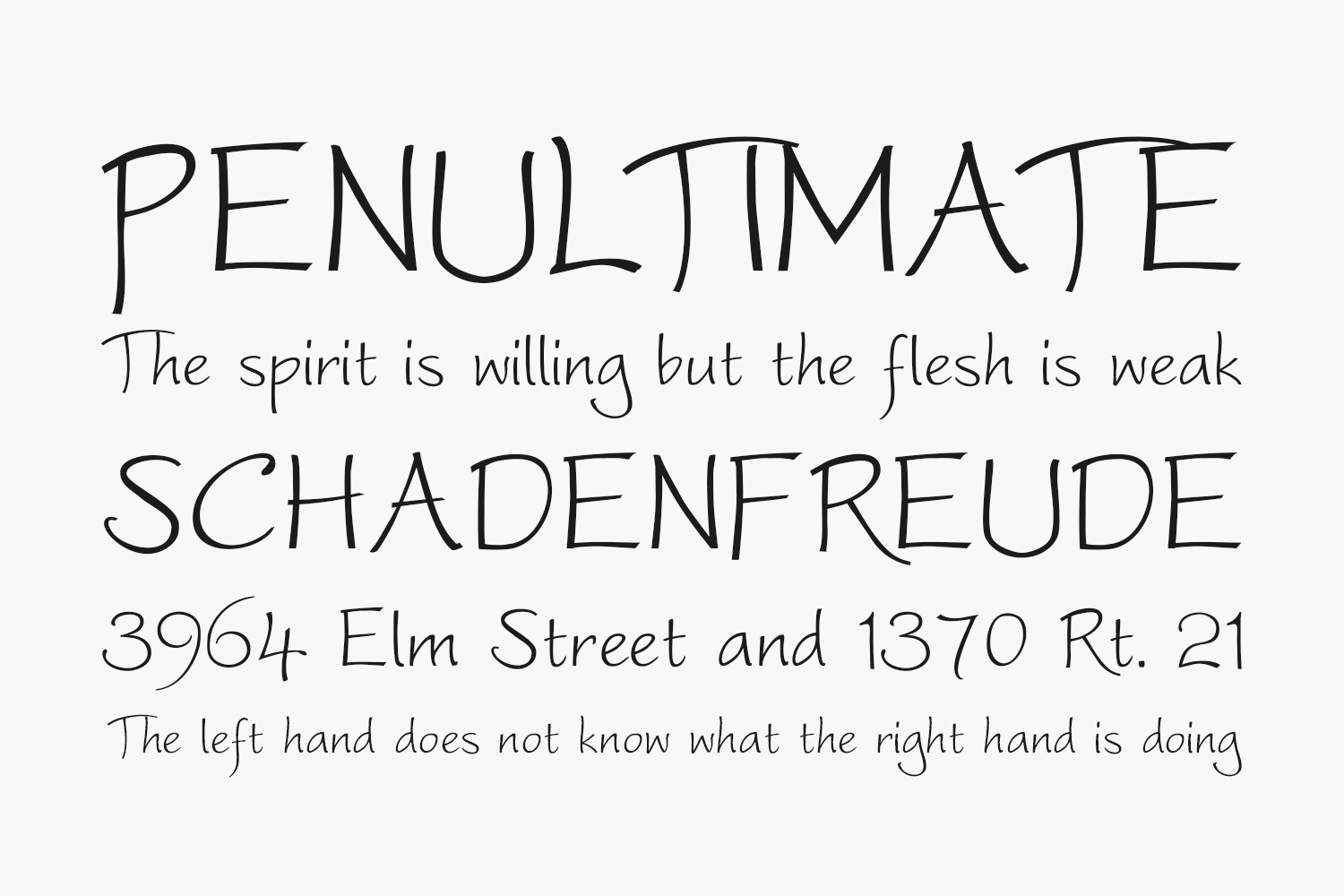
Worstveld Sling Free Font Family was created from about four rough characters that I had on
my computer. It was released in 2003 as a free commercial font. It is a nice flowy unattached script style font.
Designed by Typotheticals